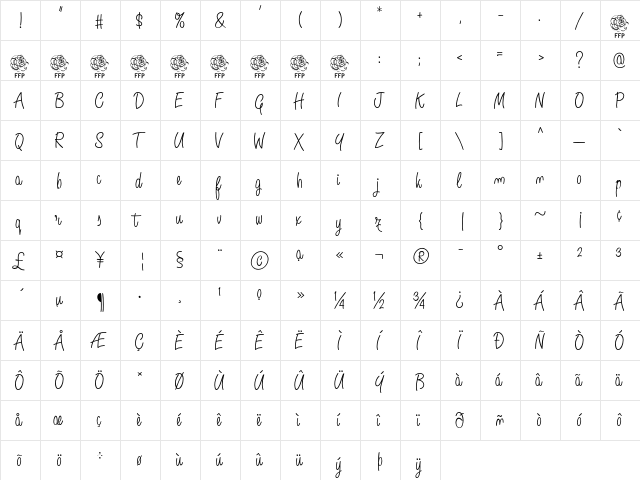
Angelique Rose FFP
| Foundry | Fernando Haro |
| Designer | deFharo |
Design Context for Angelique Rose Typeface
Angelique Rose is a composed and adaptable typeface that performs quietly and consistently across a wide range of design contexts.